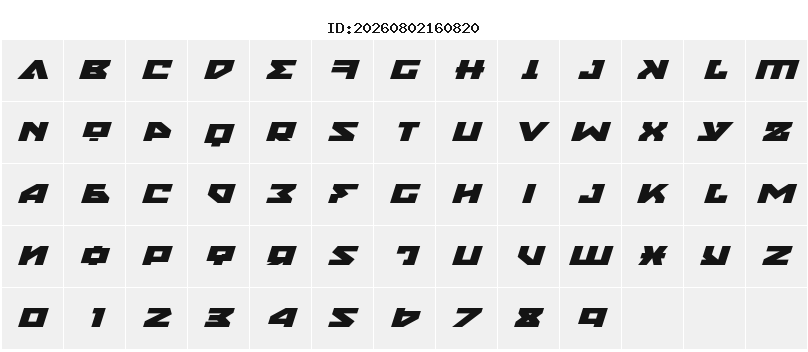
Nyet Extra-Expanded Italic Preview
• Font Name: Nyet Extra-Expanded Italic
• Font Style: Extra-Expanded Italic
• Font ID: Nyet Extra-Expanded Italic: 2015
• Full Font Name: Nyet Extra-Expanded Italic
• PostScript Name: NyetExtra-ExpandedItalic
About Nyet Extra-Expanded Italic.ttf
Nyet Extra-Expanded Italic.ttf is a modern, elegant sans-serif font designed for ultimate readability and visual harmony. Perfect for branding, headlines, web design, and print materials.